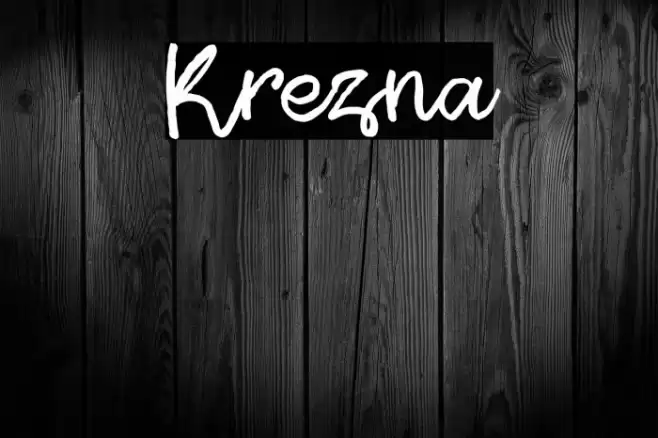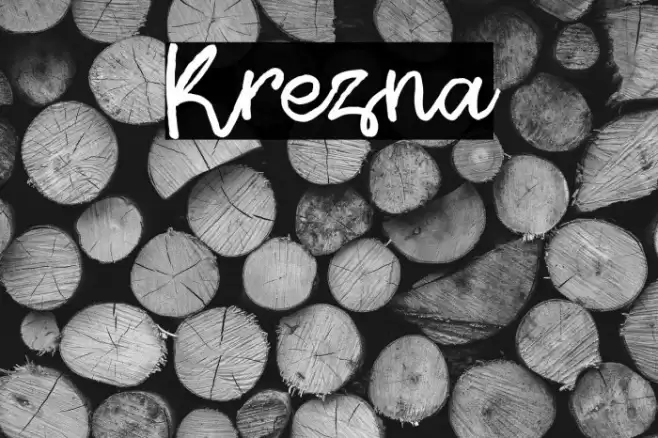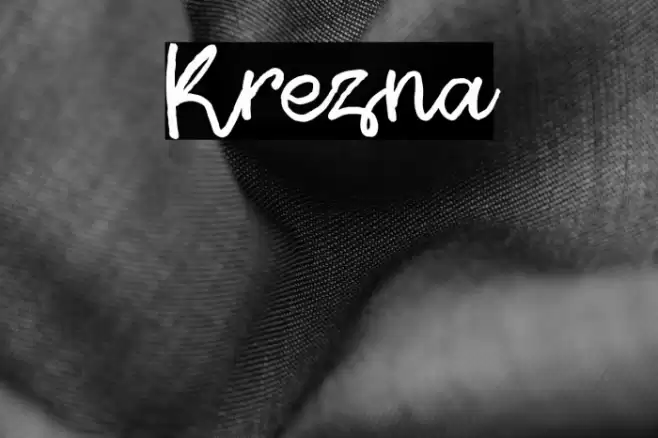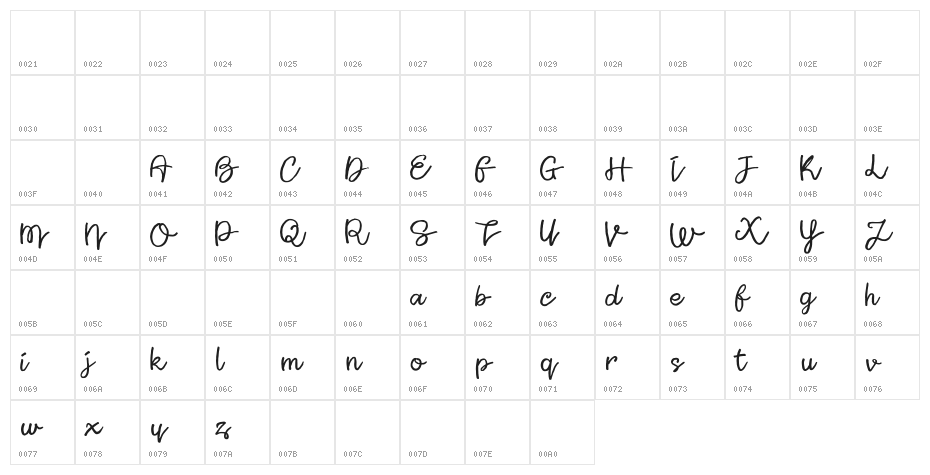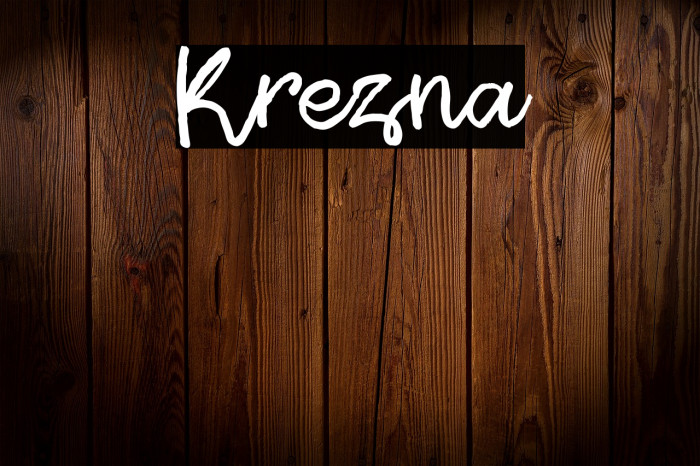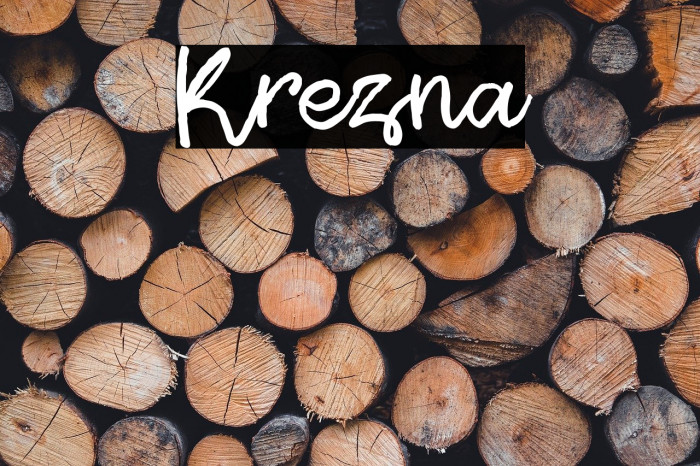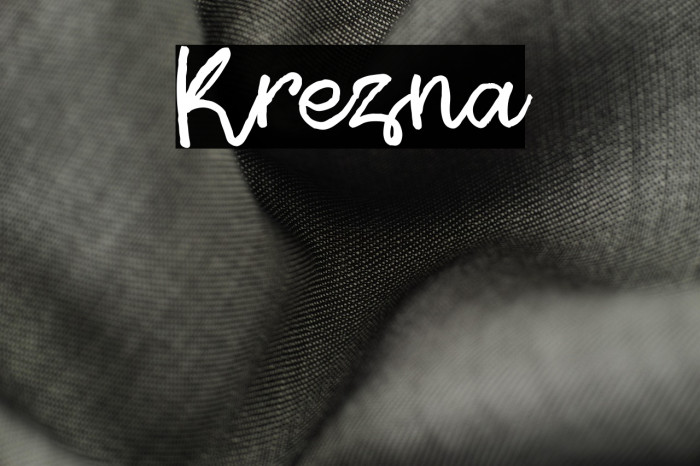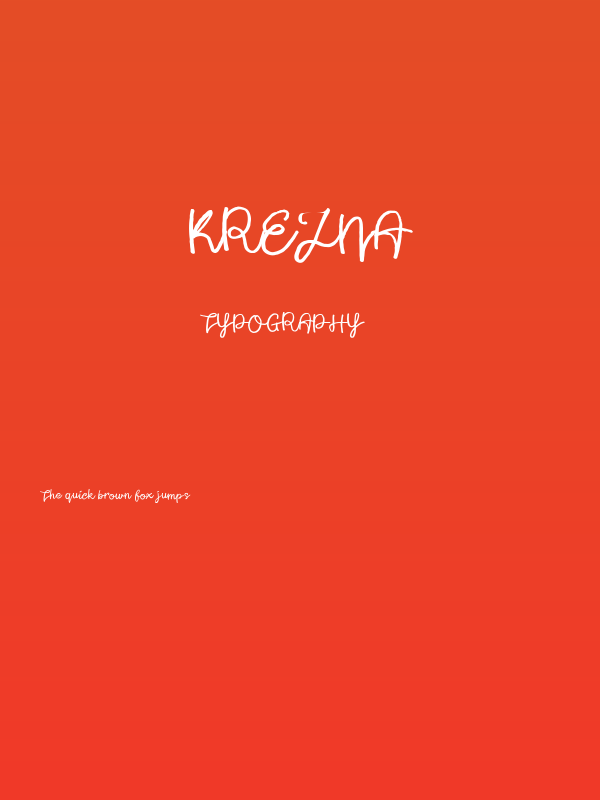
Krezna Font
Krezna Description
This font features a playful and casual script style, characterized by its fluid and connected letterforms. The strokes are smooth and exhibit a consistent thickness, giving it a harmonious and balanced appearance. The uppercase letters are slightly larger and more prominent, while the lowercase letters maintain a consistent flow, enhancing readability. The font's design is reminiscent of handwriting, with a touch of elegance and informality. It is well-suited for projects that require a personal and approachable feel, such as invitations, greeting cards, and branding materials.
A playful and casual script font with fluid, connected letterforms from Regular fonts.
- Proposed Projects: Ideal for invitations, greeting cards, branding materials, and personal projects.
- Overall Style: Casual